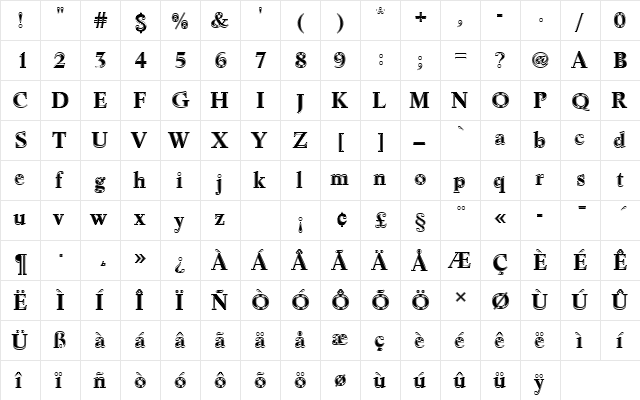
LifeTBolIn1 Regular
Design Context for LifeTBolIn1 Typeface
LifeTBolIn1 takes a measured approach to typography — its balanced proportions and neutral character make it a reliable workhorse for both digital and print work.